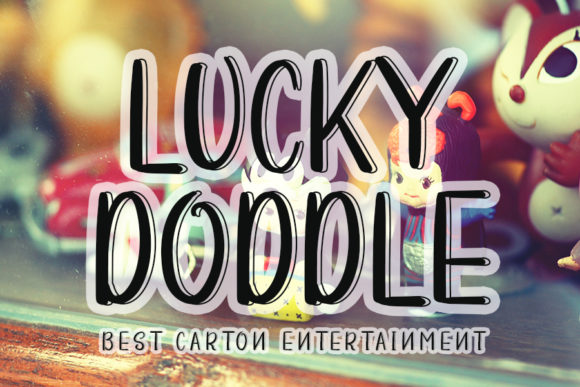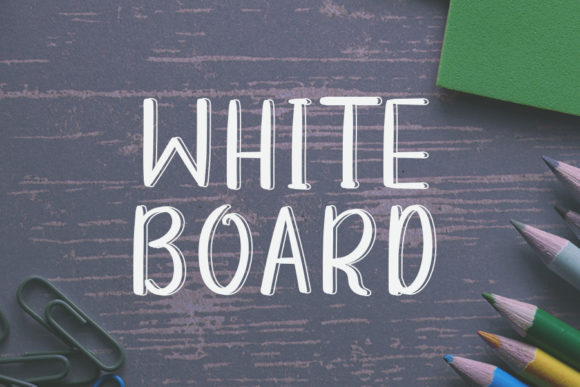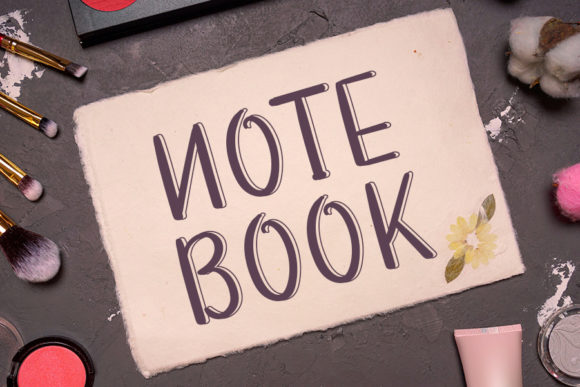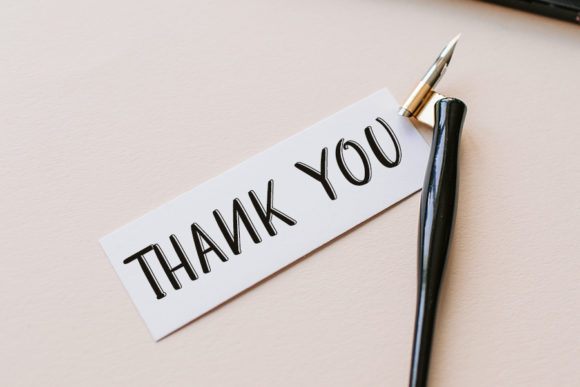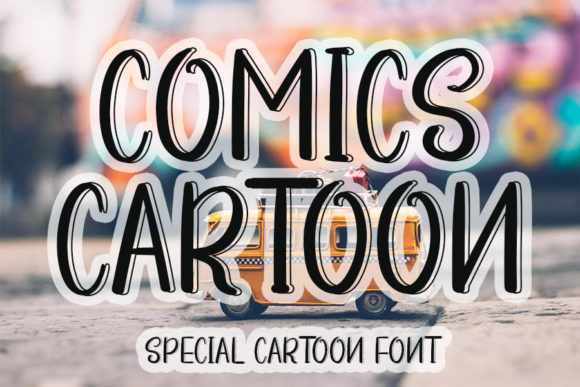
Introducing Comics Cartoon Font: The Perfect Blend of Elegance and Quirkiness
Are you a designer, crafter, or DIY enthusiast looking for a font that can add a touch of magic to your projects? Look no further than Comics Cartoon Font, a carefully crafted display font that combines elegance with a dash of quirkiness. In this article, we’ll dive into the world of Comics Cartoon Font, exploring its features, uses, and benefits for designers and crafters alike.
The Story Behind Comics Cartoon Font
Comics Cartoon Font is a unique and creative typeface designed to bring a smile to your face. With its elegant lines and playful curves, this font is perfect for adding a touch of whimsy to your logos, branding, social media graphics, and DIY projects. Whether you’re a professional designer or a crafty DIY enthusiast, Comics Cartoon Font is sure to inspire your creativity and take your projects to the next level.
Key Features of Comics Cartoon Font
So, what makes Comics Cartoon Font so special? Here are just a few of its key features:
- Elegant lines and playful curves: Comics Cartoon Font boasts a unique blend of elegance and playfulness, making it perfect for a wide range of projects.
- Magical display font: This font is designed to make a statement, with a bold and eye-catching style that’s sure to grab attention.
- Quirky and fun: Comics Cartoon Font has a playful, quirky vibe that’s perfect for adding a touch of personality to your projects.
- Versatile: Whether you’re designing a logo, creating social media graphics, or working on a DIY project, Comics Cartoon Font is the perfect choice.
Uses for Comics Cartoon Font
So, what can you use Comics Cartoon Font for? The possibilities are endless! Here are just a few ideas to get you started:
- Logos and branding: Comics Cartoon Font is perfect for creating unique and memorable logos that will help your brand stand out.
- Social media graphics: Add a touch of personality to your social media graphics with Comics Cartoon Font, perfect for creating eye-catching posts and stories.
- DIY projects: Whether you’re creating handmade cards, scrapbooking, or working on other DIY projects, Comics Cartoon Font is a great choice.
- Signage and displays: Use Comics Cartoon Font to create eye-catching signage and displays that will grab attention and draw in customers.
So, what are the benefits of using Comics Cartoon Font for designers and crafters? Here are just a few:
- Adds personality to projects: Comics Cartoon Font is a great way to add a touch of personality and whimsy to your projects.
- Versatile: Comics Cartoon Font can be used for a wide range of projects, from logos and branding to social media graphics and DIY projects.
- Unique and creative: With its unique blend of elegance and quirkiness, Comics Cartoon Font is a great way to stand out from the crowd and create something truly unique.
Tips for Using Comics Cartoon Font
Here are a few tips for getting the most out of Comics Cartoon Font:
- Experiment with different colors and textures: Add an extra layer of depth and interest to your projects by experimenting with different colors and textures.
- Pair with other fonts: Try pairing Comics Cartoon Font with other fonts to create a unique and eye-catching combination.
- Use it sparingly: While Comics Cartoon Font is a bold and eye-catching font, it’s best used sparingly to avoid overwhelming the senses.